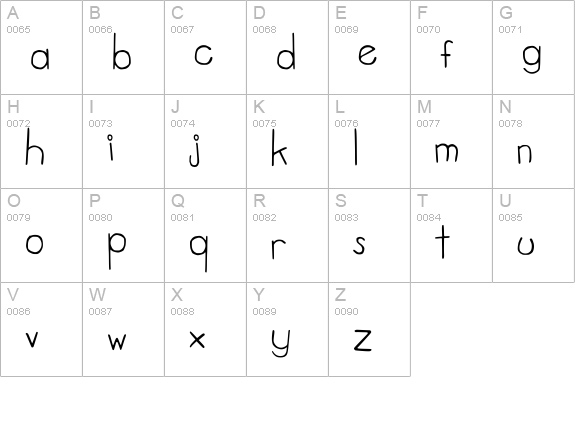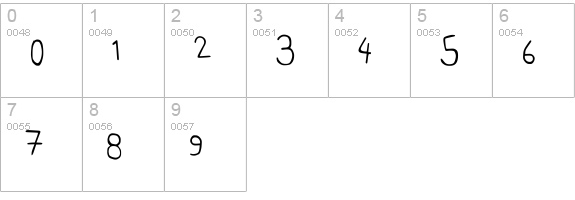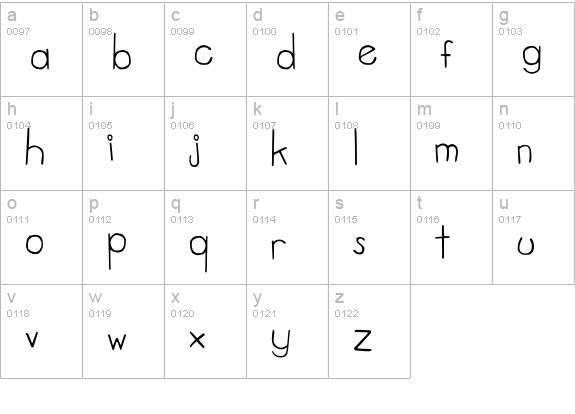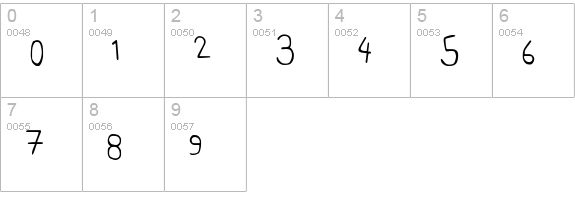
tweed. Font Details
Introducing Tweed, a captivating font that exudes elegance and sophistication. With its timeless appeal, this font is perfect for adding a touch of class to any project, whether it's a wedding invitation, a book cover, or a brand logo. Tweed is a meticulously crafted font that showcases the beauty of its intricate details. Its delicate strokes and graceful curves are reminiscent of a fine fabric, making it a truly unique and eye-catching choice for designers and typographers alike. What sets Tweed apart is not only its stunning design, but also its accessibility. This font is freely available to download at FontsMarket.com, allowing designers of all levels to unleash their creativity without any limitations. Whether you're a professional designer or a hobbyist, Tweed gives you the freedom to bring your ideas to life with ease. With its wide range of characters and ligatures, Tweed offers versatility in its usage. It can effortlessly adapt to various design styles, from vintage and retro to modern and minimalist, making it a truly versatile font that suits any project or aesthetic. Whether you're looking to add a touch of sophistication to your next design project or simply want to explore a new font that stands out from the crowd, Tweed is the perfect choice. Download it for free at FontsMarket.com and let your creativity soar with this timeless and captivating font.